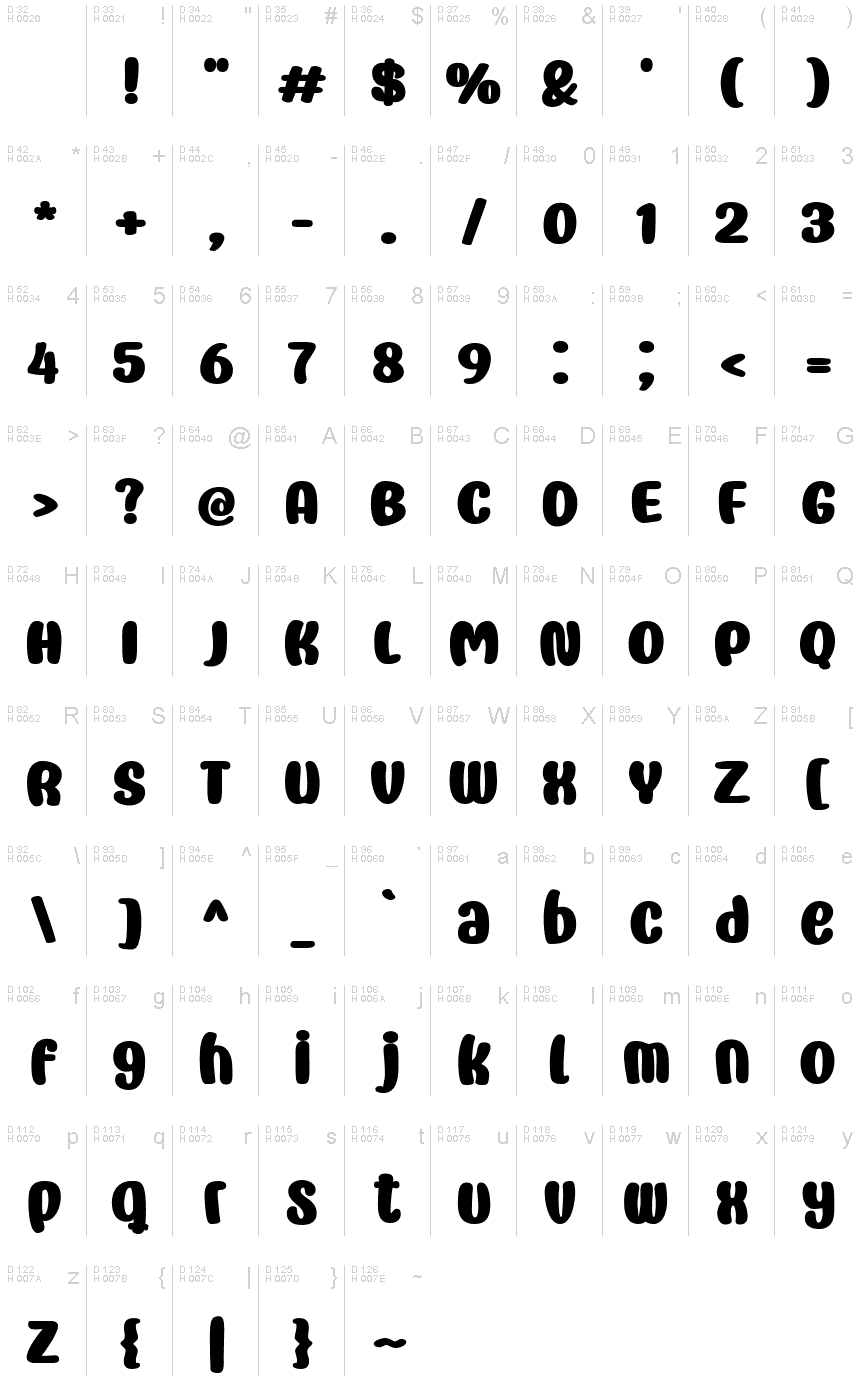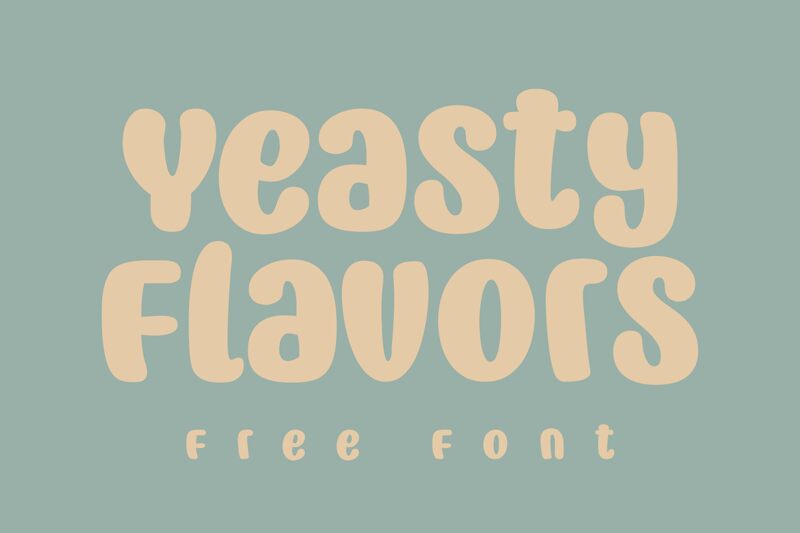
Yeasty Flavors Regular
Yeasty Flavors, crafted by the imaginative Niskala Huruf, is a playful and spirited display font that brings a dose of whimsical charm to any creative project. With its cartoon style and semi-light weight, this type boasts an effortless blend of fun and readability that's hard to come by.
The font's aesthetic appeal lies in its quirky character shapes and the gentle sway of its letters—a nod to the lightheartedness often found in animation. Each letterform in Yeasty Flavors seems to dance with a life of its own, making it an excellent choice for projects that aim to capture attention while conveying warmth and friendliness.
Whether it’s being used for children's books, lively event posters, or whimsical branding initiatives, Yeasty Flavors has the versatility to inject personality into various design landscapes without sacrificing clarity. Its unique characteristics ensure that your message not only stands out but does so with an infectious energy that audiences will adore.